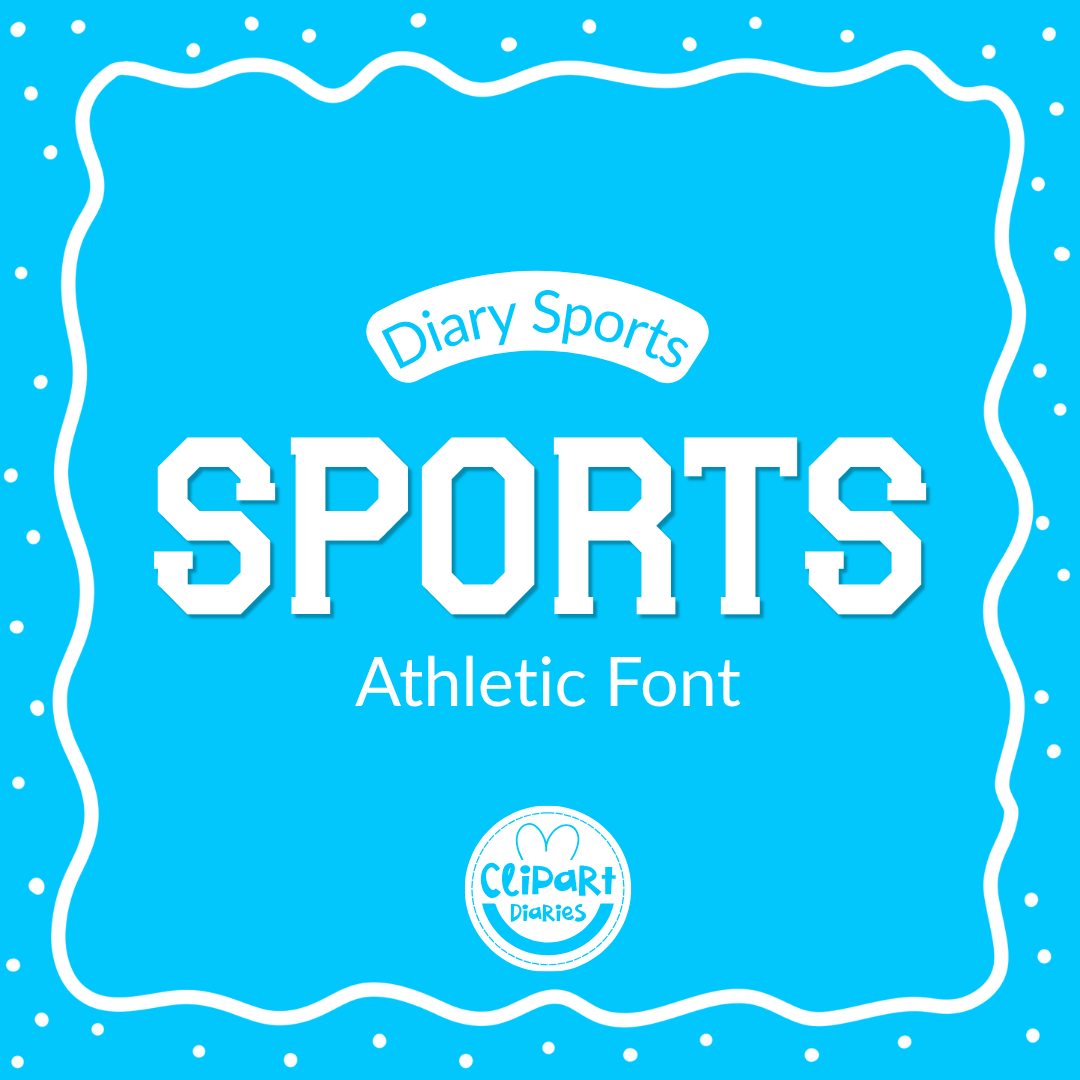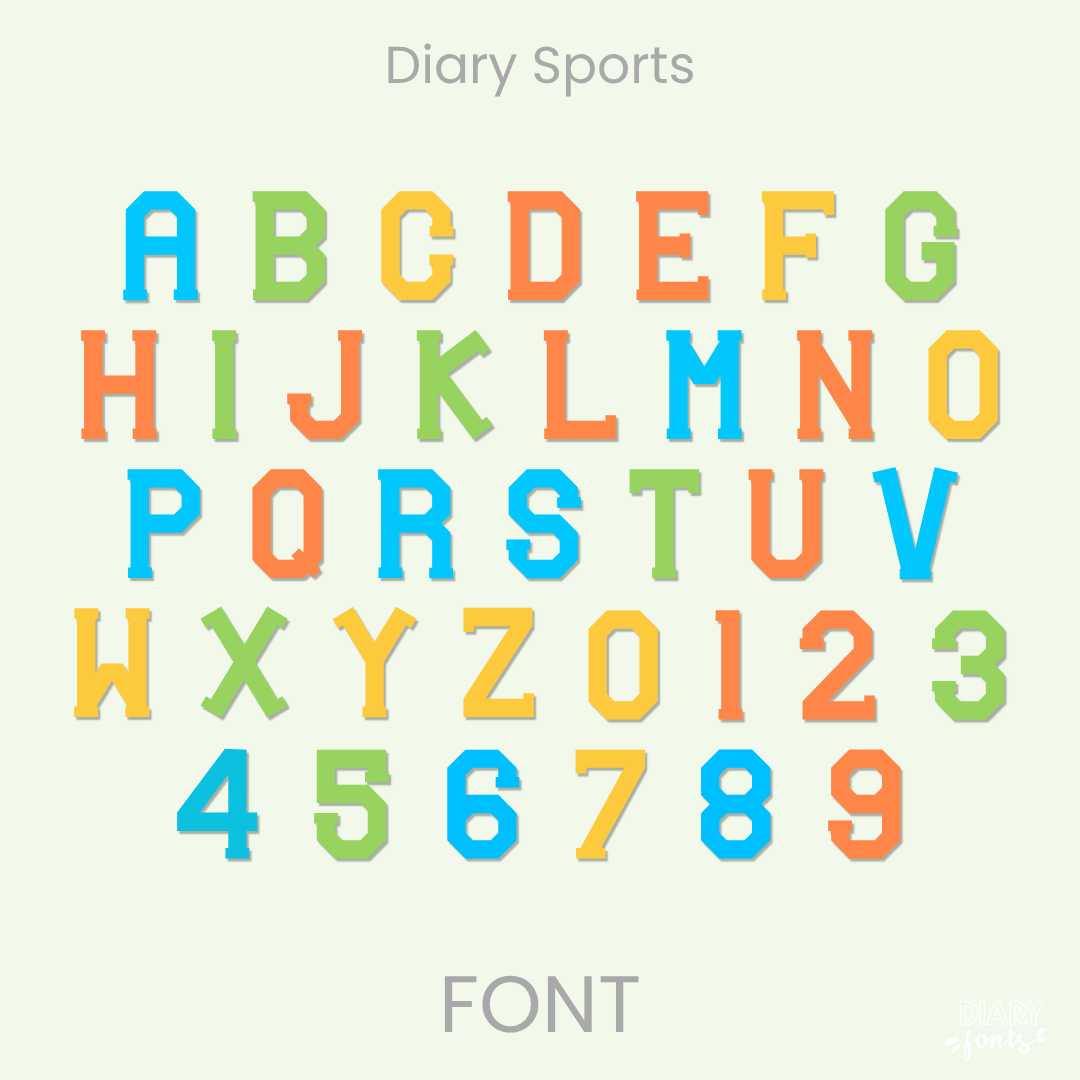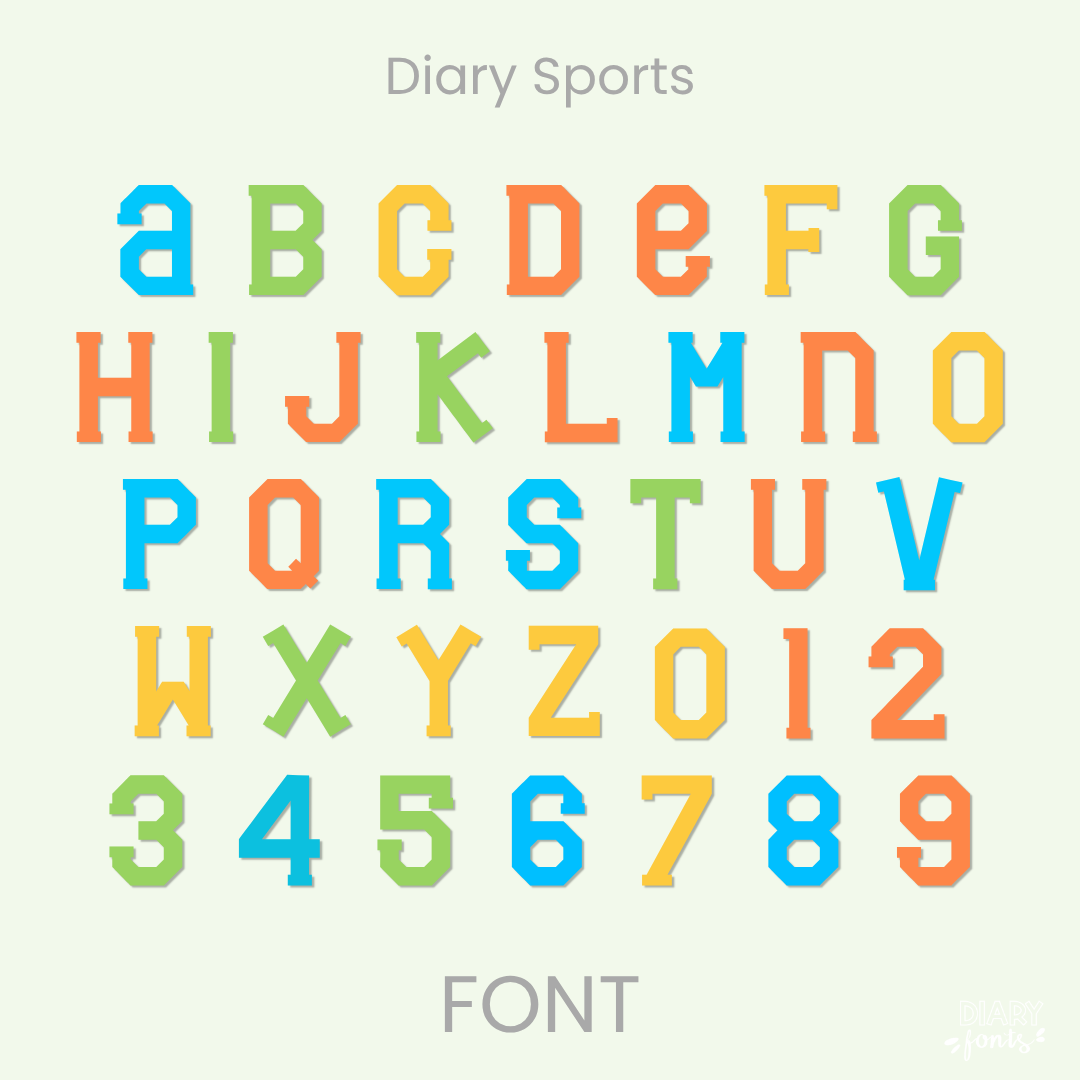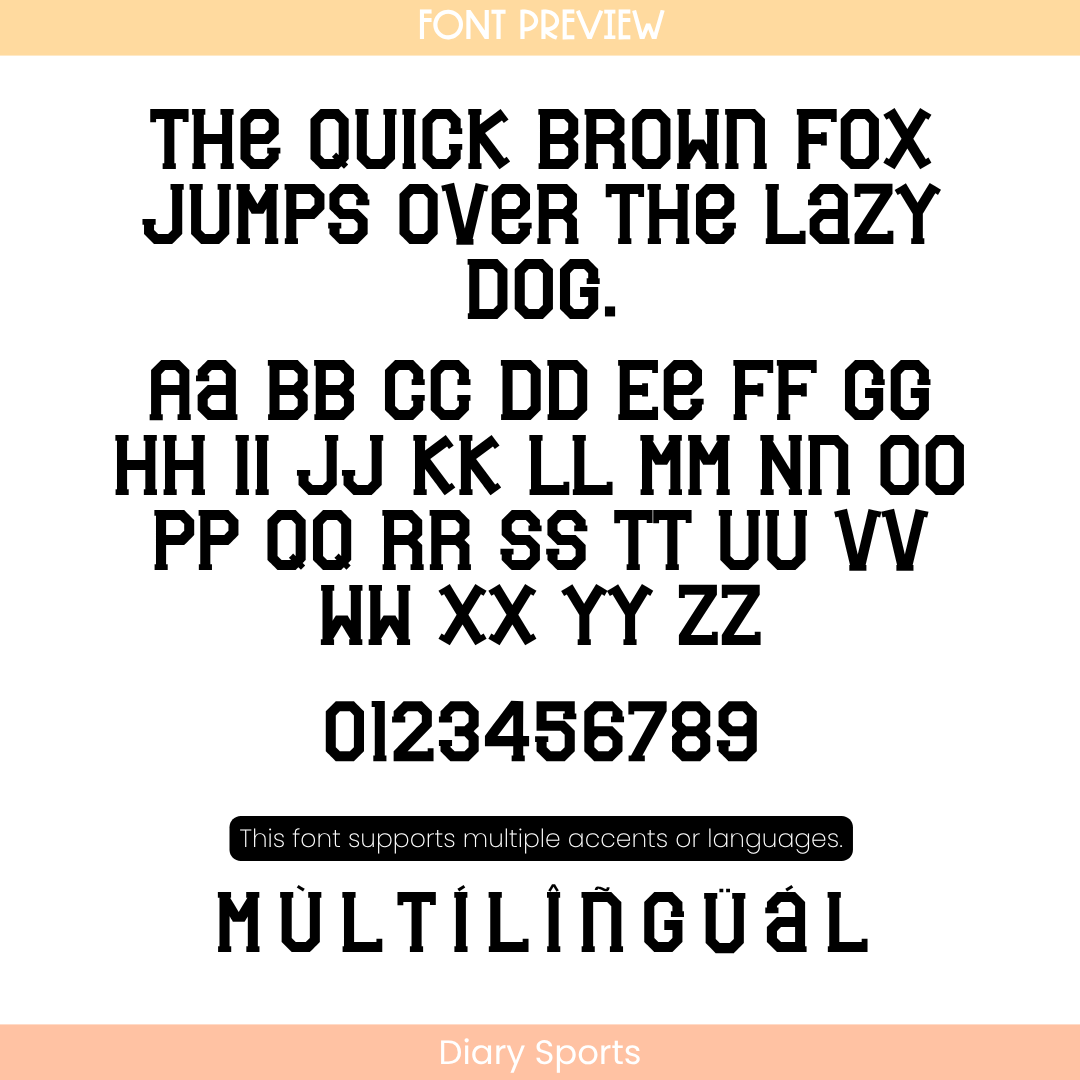
If you’ve been looking for that perfect bold varsity font to add some serious school spirit to your layouts, Diary Sports is about to become your new absolute favorite design tool. This typeface takes the classic, structured geometry of a traditional collegiate block font and fills it in solid for maximum visual impact. Standing tall and confident straight along the baseline, its heavy-weighted blocky design cuts right through the background clutter, making your display titles exceptionally clear and legible worksheet typography for your sweet students to read from anywhere in the room.
It is an absolute dream choice for designing standout school sports team shirts, field day awards, pep rally banners, morning meeting presentation titles, and athletic bulletin board headers. Inside the download, you’ll get a full set of solid college block letters, clean matching sports numbers, and multi-accent markings for complete multilingual support. It drops right into Canva, MS Office, or Adobe on your desktop, and pairs beautifully with Procreate and GoodNotes on your iPad. Whether you’re prepping a dynamic layout for your own sweet students or crafting a bold new commercial-use product line for your online teacher shop, this solid varsity lettering adds a touch of confident, friendly style to your creative toolkit.